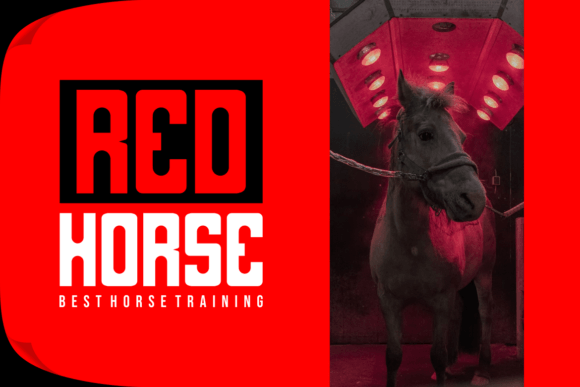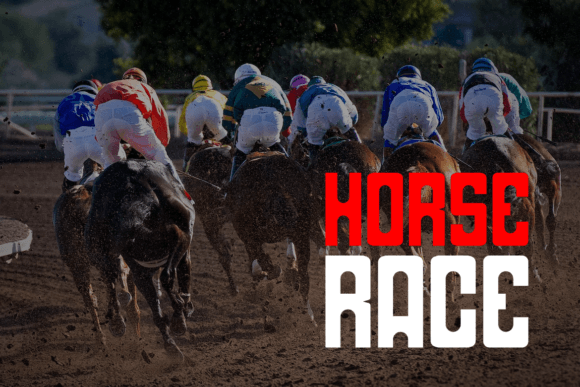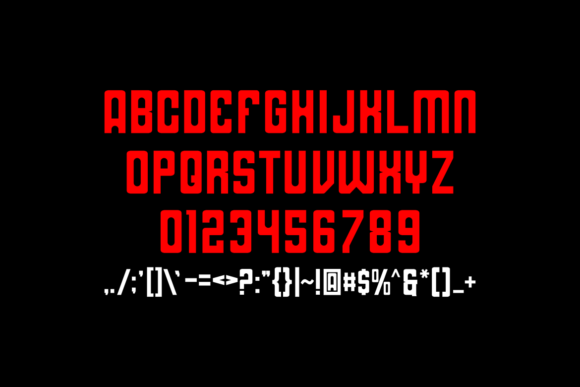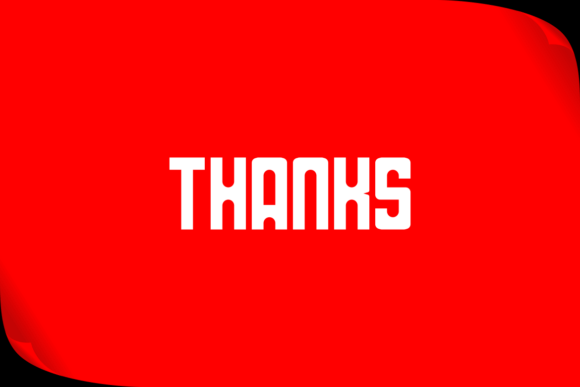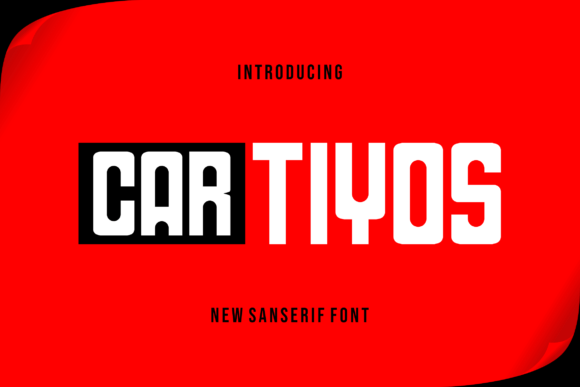
Introducing Cartiyos Font: Elevate Your Designs with a Cool and Modern Display Font
Are you tired of using the same old fonts in your designs? Look no further than Cartiyos Font, a cool and modern display font that’s sure to take your creations to the next level. With its unique and stylish aesthetic, Cartiyos is an incredible asset to any font library, and can be used to elevate any project, regardless of the topic or theme.
What Makes Cartiyos Font So Special?
Cartiyos Font is a modern sans-serif font that’s designed to make a statement. Its clean lines, geometric shapes, and carefully crafted letterforms make it perfect for use in a wide range of design applications, from posters and flyers to logos and branding materials. Whether you’re a professional designer or a crafty DIY enthusiast, Cartiyos Font is sure to become a go-to in your font collection.
Key Features of Cartiyos Font
- Modern and sleek design: Cartiyos Font features a clean and contemporary design that’s perfect for creating modern and stylish designs.
- Highly legible: Despite its bold and eye-catching aesthetic, Cartiyos Font is highly legible, even at small sizes.
- Versatile: Cartiyos Font can be used in a wide range of design applications, from print materials to digital projects.
How to Use Cartiyos Font in Your Designs
Cartiyos Font is incredibly versatile, and can be used in a wide range of design applications. Here are just a few ideas to get you started:
- Posters and flyers: Use Cartiyos Font to create eye-catching posters and flyers that grab attention and communicate your message.
- Logos and branding materials: Cartiyos Font is perfect for creating modern and stylish logos, business cards, and other branding materials.
- Digital projects: Use Cartiyos Font in your digital projects, such as social media graphics, website headers, and more.
- Crafting projects: Cartiyos Font is also perfect for crafty DIY enthusiasts, and can be used in a wide range of crafting projects, from scrapbooking to card making.
Why Choose Cartiyos Font?
With so many fonts to choose from, why should you choose Cartiyos Font? Here are just a few reasons:
- Unique and stylish aesthetic: Cartiyos Font features a unique and stylish aesthetic that’s sure to make your designs stand out.
- High-quality design: Cartiyos Font is designed to high standards, ensuring that it’s both legible and visually appealing.
In conclusion, Cartiyos Font is a cool and modern display font that’s sure to elevate any design. With its unique and stylish aesthetic, high-quality design, and ease of use, Cartiyos Font is an incredible asset to any font library. Whether you’re a professional designer or a crafty DIY enthusiast, Cartiyos Font is a great choice for any project. So why wait? Download Cartiyos Font today and start creating stunning designs that grab attention and communicate your message.